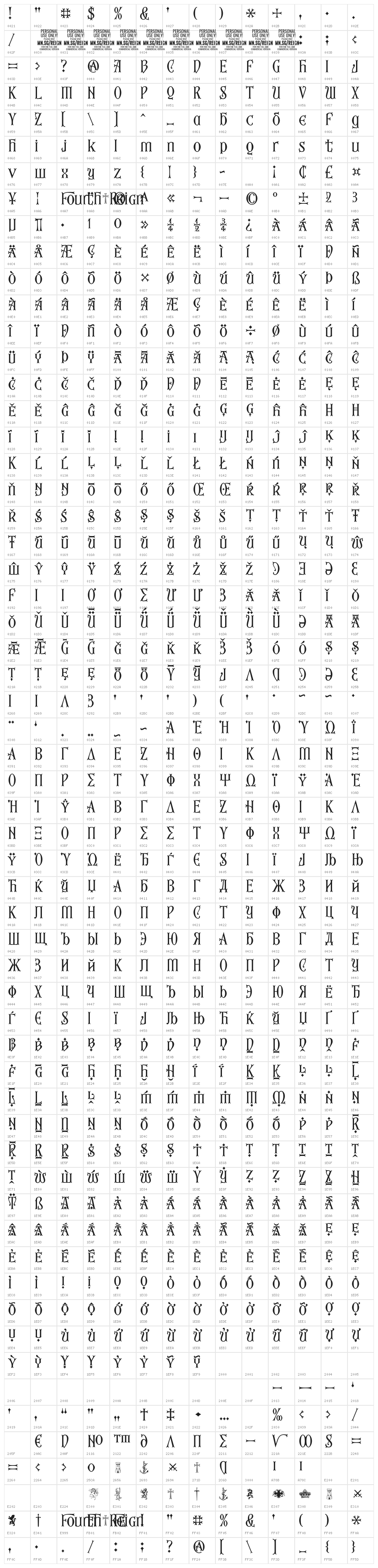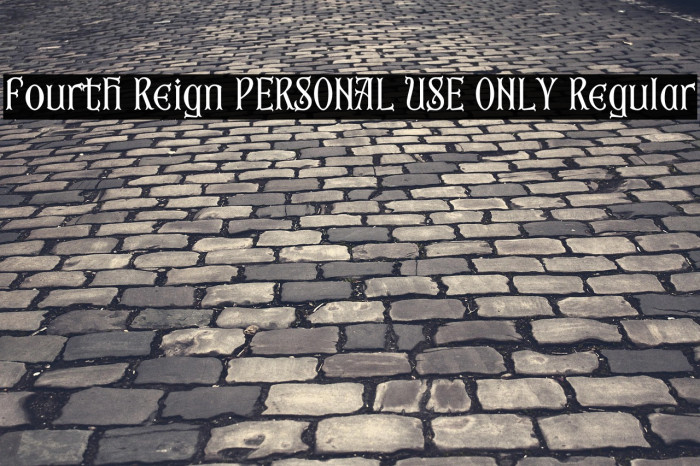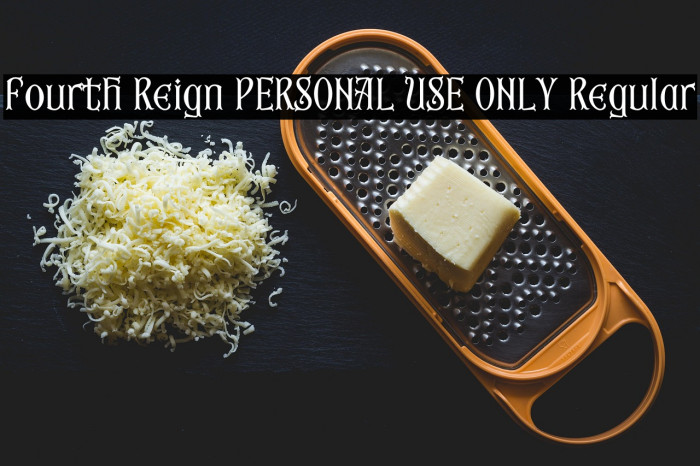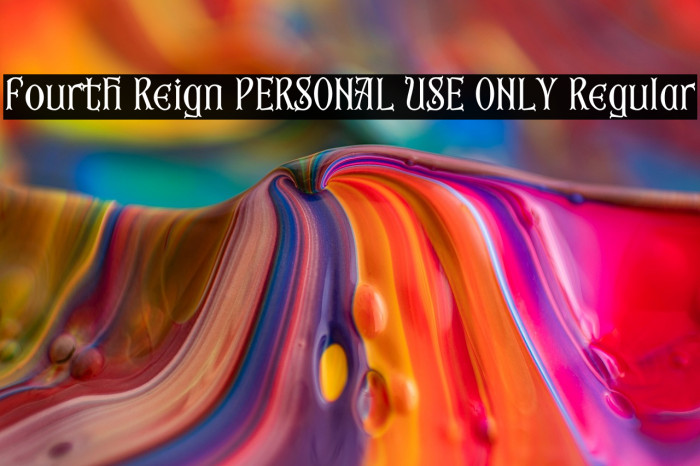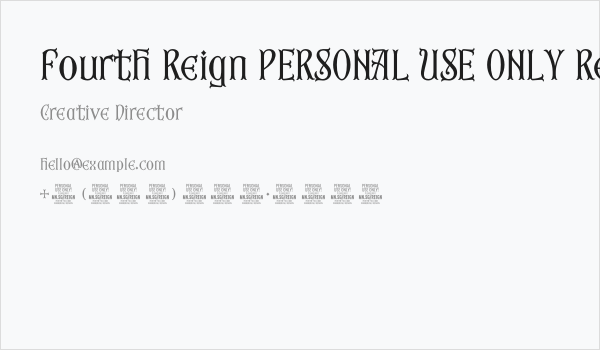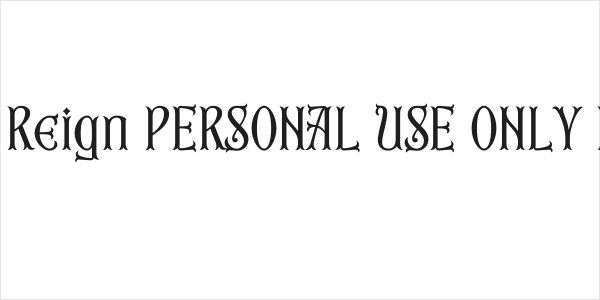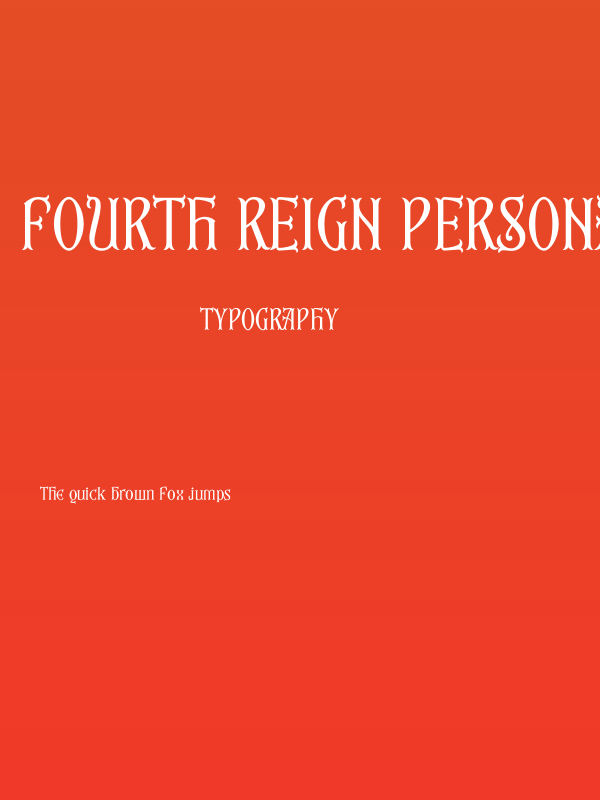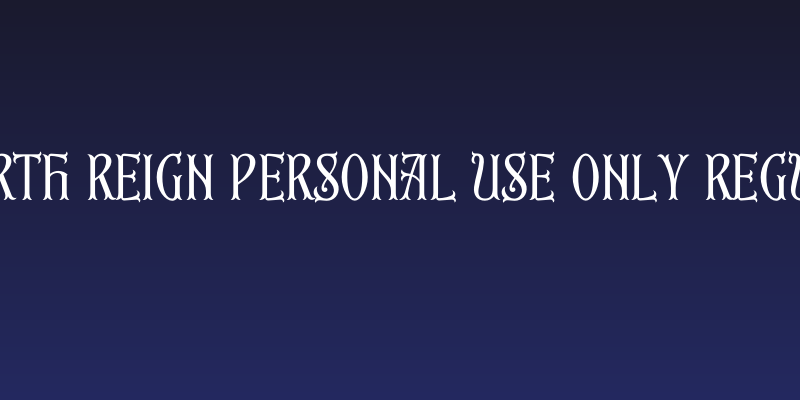
Fourth Reign PERSONAL USE ONLY Regular Font
Fourth Reign PERSONAL USE ONLY Regular Description
This font features a distinct and ornate style, characterized by its sharp, angular serifs and intricate detailing. The uppercase letters exhibit a medieval flair, with exaggerated curves and pointed edges, creating a dramatic and bold appearance. The lowercase letters maintain this theme, offering a cohesive and visually striking look. The numerals and special characters are equally elaborate, ensuring consistency across all glyphs. This font is ideal for projects that require a historical or fantasy aesthetic, providing a sense of grandeur and elegance.
| Proposed Projects | Ideal for fantasy book covers, historical event posters, themed invitations, and decorative signage. |